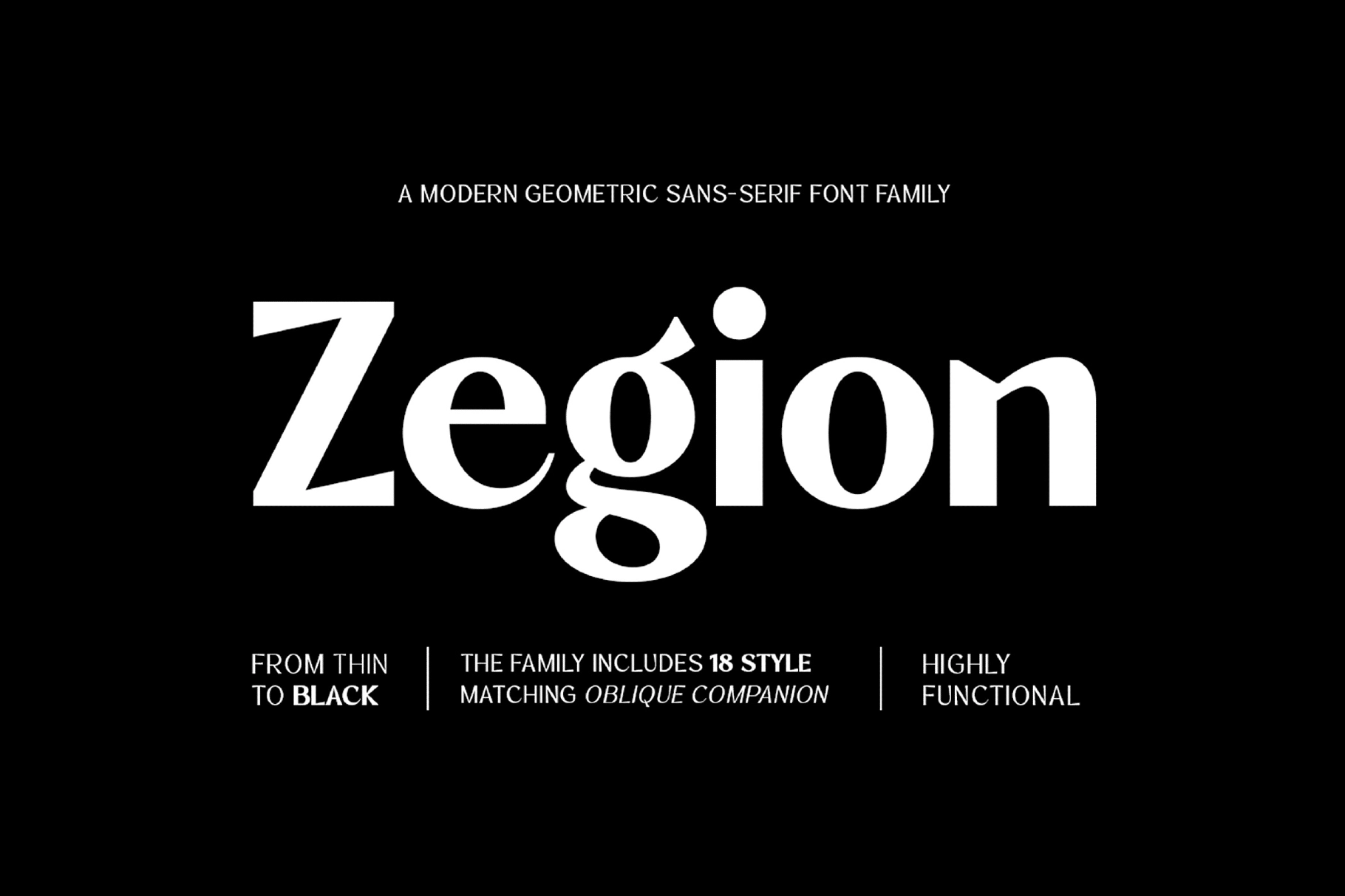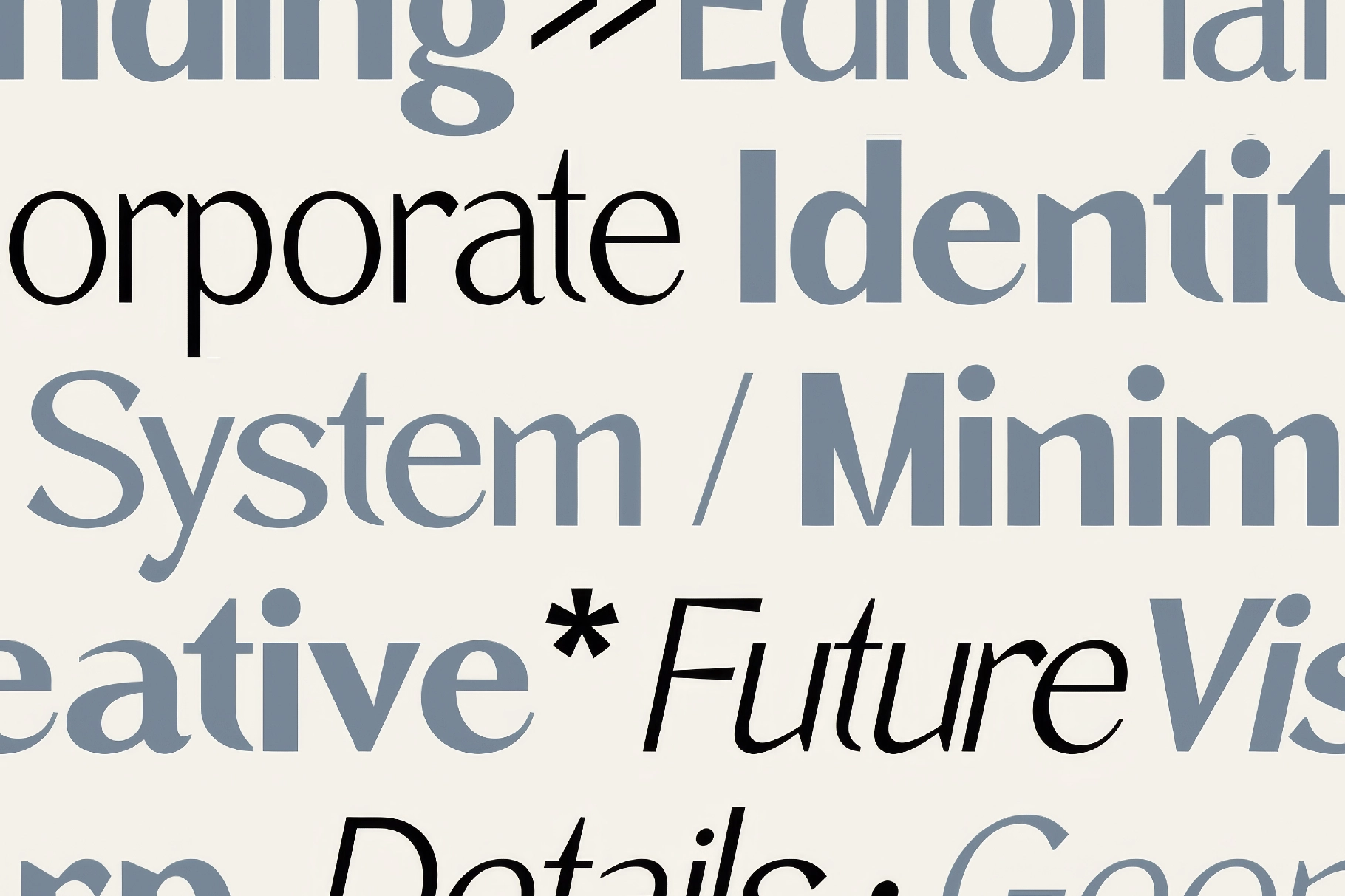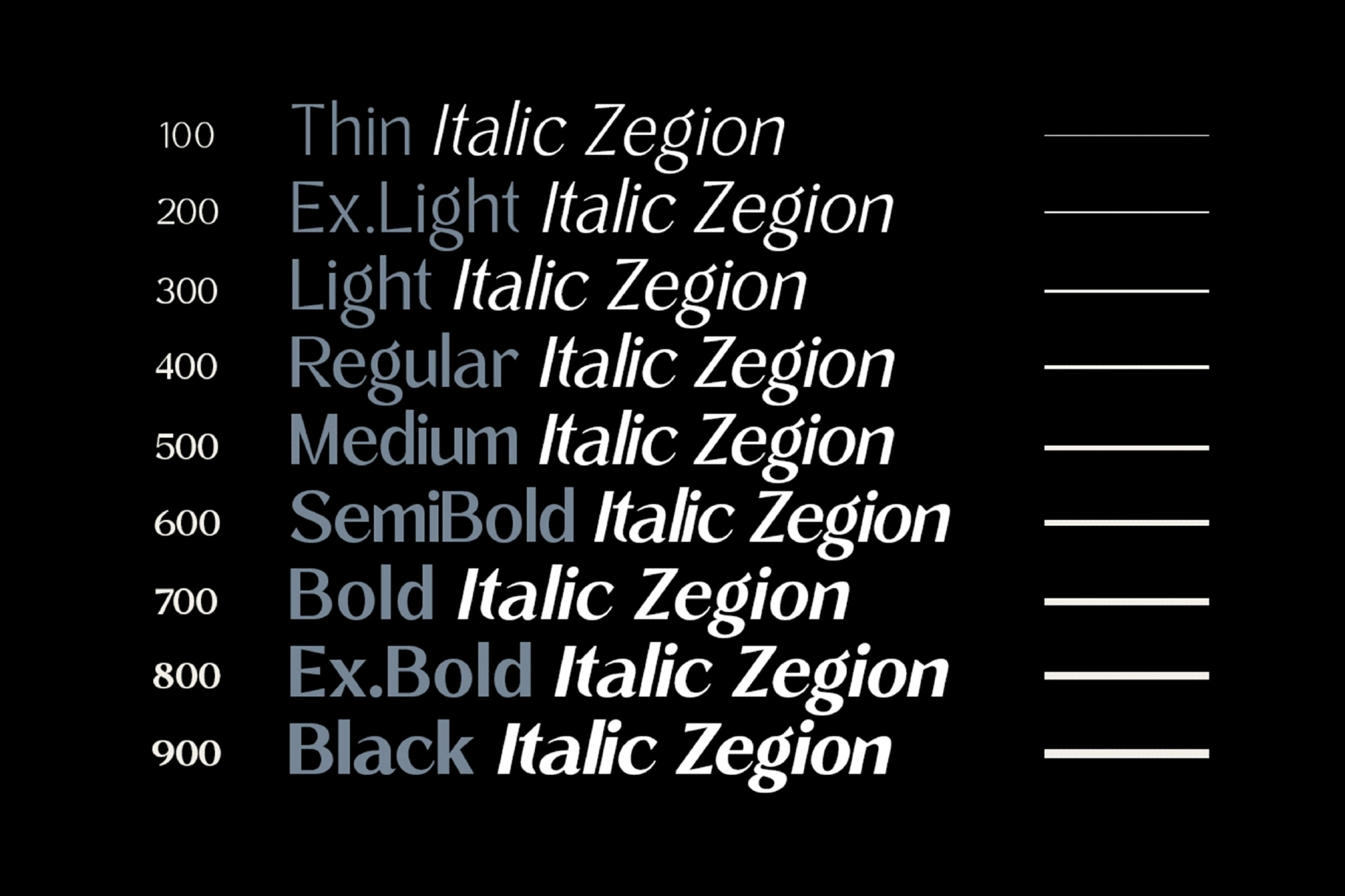
Zegion - Modern Geometric Sans Font Family
Zegion is a sans serif font family that trades flat geometry for a touch of stroke contrast, its rounded terminals and generous curves giving Regular and Bold weights a warmer, less mechanical stance. Nine weights run from a hairline Thin to a dense Black, and every weight pairs with an italic that swings looser and more cursive than a simple slant.
The weight range gives it reach: the lighter styles hold up in long-form body copy and UI labels, while the heavier weights take over headlines, logotypes, and cover lines without losing their rounded warmth. Use it for corporate identity systems, branding and logotypes, editorial layouts, packaging copy, and social media graphics that want a considered, contemporary voice.
- 18 styles: Thin, ExtraLight, Light, Regular, Medium, SemiBold, Bold, ExtraBold, and Black, each with a matching italic;
- Uppercase & lowercase;
- Numerals, punctuation & symbols;
- Ligatures